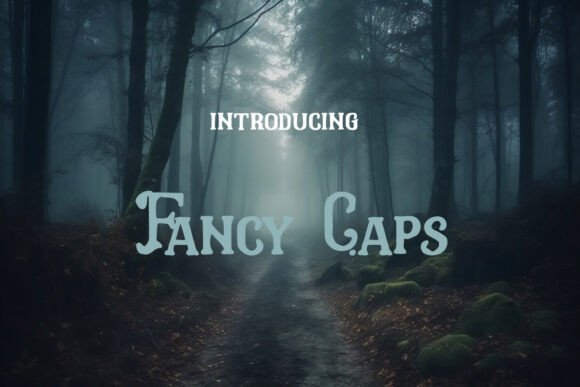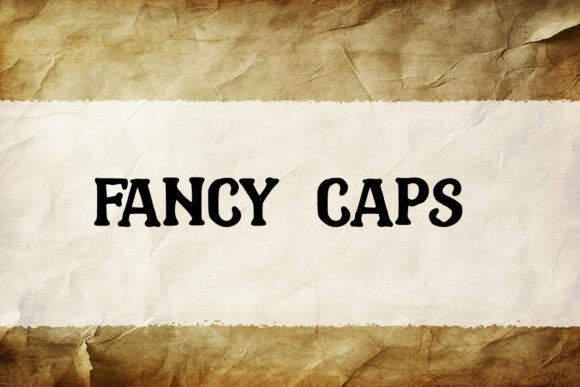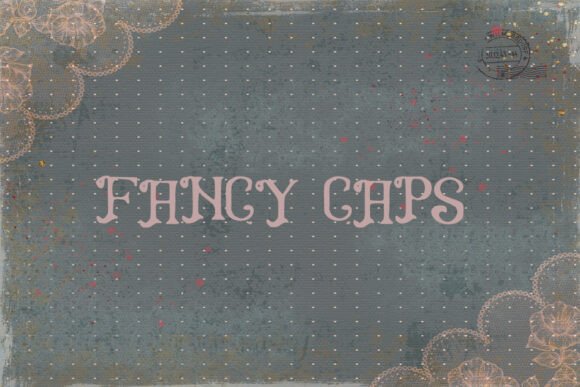
The Perfect Typography Companion: Introducing Fancy Caps Font
There’s something magical about the moment when a design comes together – when every element, from color to typography, harmonizes in perfect unison. It’s a feeling that’s hard to replicate, but with the right tools, it’s achievable. For designers seeking to elevate their creations, the search for that perfect typography companion often leads to a treasure trove of options.
Enter the Fancy Caps Font, a Serif Display Font that embodies versatility at its finest. This charming font seamlessly lends itself to diverse mediums, making it an invaluable asset for designers. Whether it’s the allure of a print design, the persuasive power of a promotional material, or the masterful storytelling in a magazine layout, Fancy Caps Font is the perfect typography companion to imbue your creations with distinct appeal.
With its undeniable charm and versatility, the Fancy Caps Font is sure to elevate your designs and leave a lasting impression on your audience.
Fancy Caps Font Key Features
- Font Style: A unique, elegant font style with intricate details and ornaments, perfect for adding a touch of sophistication to any design.
- Unicode Support: Includes a comprehensive Unicode character set, ensuring that the font can display a wide range of languages and characters.
- Special Characters: Features a set of unique and decorative characters, including swashes, flourishes, and ornaments, to add an extra touch of elegance to your designs.
- Font Weight and Style Options: Offers a range of font weights and styles, including bold, italic, and condensed, to give you more flexibility and creativity in your designs.
Fancy Caps Font Review
Overall, I’d say the Fancy Caps Font is a great choice for adding some extra flair to your designs. Here are the things that really work well: ✨
- Unique and eye-catching: The Fancy Caps Font is definitely a head-turner. It’s a great option for anyone looking to add some personality to their designs.
- Well-suited for headings and titles: The font’s bold and playful style makes it perfect for use in headings and titles.
- Customizable: The font comes in a range of styles and sizes, making it easy to customize to fit your design needs.
- Not suitable for body text: While the Fancy Caps Font is great for headings and titles, it’s not the best choice for body text. It can be difficult to read in large blocks of text.
- Limited versatility: While the font is customizable, it’s still a relatively simple font with limited versatility. It may not be the best choice for complex or detailed designs.
Overall, I think the Fancy Caps Font is a great addition to any designer’s toolkit. While it has some limitations, it’s a fun and eye-catching option that can add some personality to your designs.
Fancy Caps Font is ideal for:
- Adding a touch of elegance to titles and headings.
- Creating a vintage or retro aesthetic.
- Highlighting important information or calls-to-action.
Remember to use Fancy Caps Font sparingly to avoid overwhelming your design.
Alternatives to Fancy Caps Font
Playfair Display is a luxurious and elegant font, ideal for high-end branding, invitations, and special events. It features intricate details and ornate flourishes, making it perfect for creating a sense of sophistication and refinement. Compared to Fancy Caps Font, Playfair Display is more elaborate and ornate, with a greater emphasis on luxury and elegance.
Great Vibes is a modern and stylish font, suitable for fashion, beauty, and lifestyle brands. It features clean lines, elegant curves, and a touch of sophistication, making it perfect for creating a sense of modernity and glamour. Compared to Fancy Caps Font, Great Vibes is more streamlined and minimalist, with a focus on clean lines and simplicity.
Carolyna Pro is a elegant and refined font, ideal for luxury brands, high-end fashion, and special events. It features classic details, ornate flourishes, and a touch of sophistication, making it perfect for creating a sense of elegance and refinement. Compared to Fancy Caps Font, Carolyna Pro is more refined and polished, with a greater emphasis on classic style and sophistication.